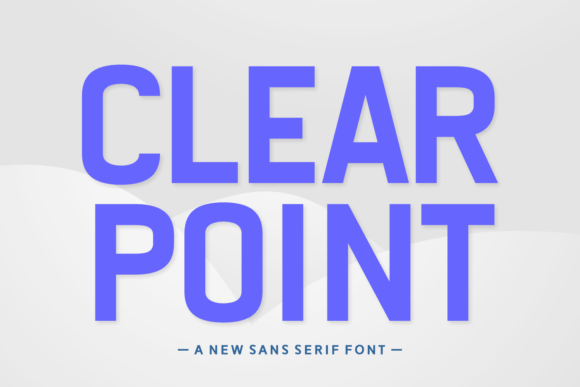
Where Typography Meets Impact
Have you ever stared at a blank page, struggling to find the perfect font to convey your message? The right typography can make all the difference between a bland design and a bold statement. For designers, finding the ideal font can be a daunting task, but what if you had a font that could elevate your work and leave a lasting impression?
Enter the Clear Point Font, a modern sans serif font designed to precision and clarity. With its strong geometric structure and clean letterforms, this font is perfect for impactful headlines, branding, and digital media. Whether you’re a seasoned designer or just starting out, the Clear Point Font offers a versatile solution that balances readability with a contemporary edge.
With the Clear Point Font, you can take your designs to the next level and make a lasting impression on your audience.
Clear Point Font Key Features
- Font Family: Clear Point is a sans-serif font family designed for clear and readable text.
- Unique Characteristics: Clear Point Font features a unique blend of geometric and humanist elements, resulting in a highly legible and modern design.
Designer Review: Clear Point Font
✨ I have to say, I’m really impressed with the overall aesthetic of Clear Point Font. The clean and modern design makes it perfect for any project that requires a sleek, professional look. The font’s simplicity also makes it versatile, and it can be used in a wide range of applications, from logos to body text.
✨ The font’s x-height is well-balanced, making it easy to read, even at small sizes. The letterforms are also well-proportioned, which adds to the overall sense of harmony and balance. I’ve used Clear Point Font in a few projects, and it’s always delivered a professional finish.
⚠️ One of the limitations of Clear Point Font is its lack of personality. While its simplicity is a strength in many ways, it can also make it feel a bit bland and uninteresting. If you’re looking for a font that’s going to make a statement, Clear Point might not be the best choice.
⚠️ Additionally, the font’s legibility can suffer at very small sizes, which may be a concern if you’re planning to use it in a situation where text will be displayed in a small format.
Overall, I think Clear Point Font is a solid choice for any project that requires a clean and professional look. While it may not be the most exciting font, it’s reliable and easy to use, making it a great option for designers who want a font that just gets the job done.
Recommendation
If you’re looking for a font that’s a bit more exciting, you might want to consider pairing Clear Point with a more expressive font to add some personality to your design. However, if you need a font that’s going to deliver a professional finish, Clear Point is a safe bet.
Rating
I’d give Clear Point Font 4 out of 5 stars. It’s a solid choice for designers who want a clean and professional look, but it may not be the best choice for designers who are looking for a font that’s going to make a statement.
Tips for Getting the Most Out of Clear Point Font
Clear Point Font is a versatile and modern font that works well in a variety of applications. To get the most out of it, try the following:
- Use it in combination with bold or italic styles to add emphasis.
- Experiment with different font sizes to create visual interest.
- Pair it with other modern fonts for a clean and professional look.
Clear Point Font is well-suited for a variety of applications, including:
- Business presentations and reports.